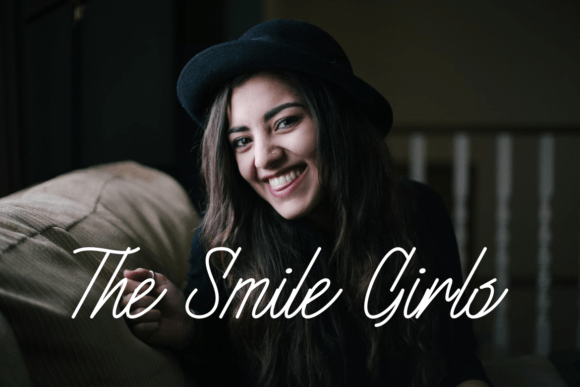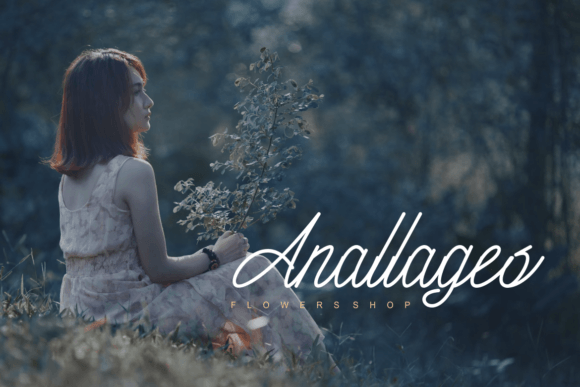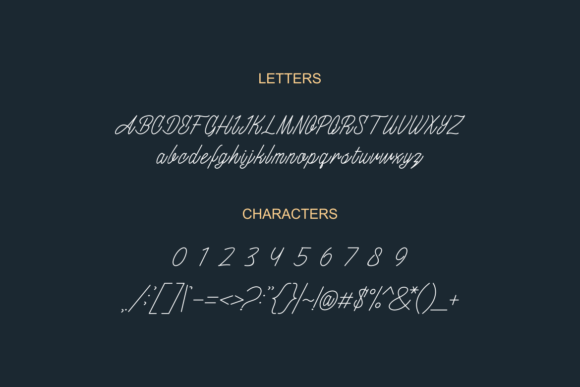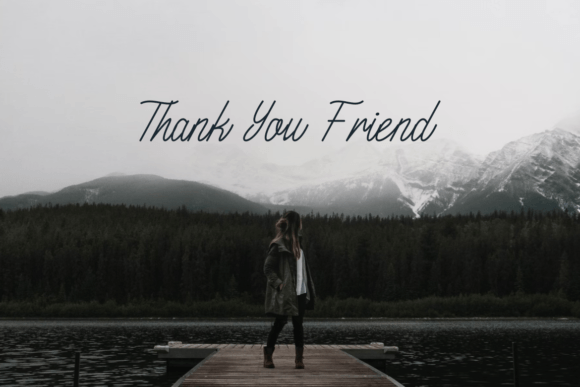
Discover the Timeless Elegance of Andalles Font
There’s nothing quite like the thrill of bringing a new project to life, watching your ideas take shape, and seeing your vision unfold. For many designers, this moment is a true rush of excitement, a chance to unleash their creativity and showcase their unique style. And what better way to elevate your designs than with a font that exudes timeless elegance and sophistication?
Enter Andalles Font, a masterfully designed handwritten font that seamlessly blends classic calligraphic influences with a fresh, contemporary vibe. With its beautiful, flowing lines and subtle flair, Andalles Font is the perfect choice for designers seeking to add a touch of sophistication to their projects. Whether you’re working on a wedding invitation, a luxury brochure, or a branding campaign, Andalles Font is sure to elevate your designs to new heights.
Review of Andalles Font
Overall, I’m quite impressed with the Andalles Font. It’s a beautiful, elegant script font that can add a touch of sophistication to any design project. ✨
- The Andalles Font has a unique, handwritten feel that’s perfect for creating a personal, emotive connection with the audience.
- The font’s subtle irregularities and imperfections give it a human touch that’s hard to find in more formal, digital fonts.
- The Andalles Font is highly customizable, with a wide range of options for adjusting font size, color, and spacing.
- It’s a great choice for designing invitations, quotes, and other text-based projects where a touch of elegance is needed.
LIMITATIONS:
While the Andalles Font is a great choice for many design projects, it’s not without its limitations. ⚠️
- The font may be a bit too ornate for some projects, which can make it difficult to read in certain contexts.
- The Andalles Font may not be the best choice for designing text that needs to be highly legible, such as body text or headlines.
- The font’s customizability can be a double-edged sword, as it may be overwhelming for designers who are new to working with script fonts.
Overall, I think the Andalles Font is a great addition to any designer’s toolkit. With a little care and attention, it can be a powerful tool for creating beautiful, elegant designs.
Andalès Font: A Practical Application Guide
Andalès font is ideal for use in titles, headings, and body text for creative projects, such as:
– Branding and marketing materials
– Brochures and flyers
For optimal results, pair the Andalès font with complementary fonts and colors to create a visually appealing design.
Alternatives to Andalles Font for Designers
Montserrat is a popular sans-serif font designed by Julieta Ulanovsky. It’s ideal for use in digital products, branding, and marketing materials. Montserrat is a great alternative to Andalles Font as it offers a similar modern feel but with a more geometric and clean appearance. It’s highly legible and suitable for body text, headlines, and titles.
Inter is a sans-serif font designed by Rasmus Andersson. It’s a highly versatile font that’s suitable for a wide range of applications, from digital products to print materials. Inter offers a similar modern feel to Andalles Font but with a more minimalist and sleek appearance. It’s highly legible and suitable for body text, headlines, and titles.
Open Sans is a modern sans-serif font designed by Steve Matteson. It’s a highly legible font that’s suitable for digital products, branding, and marketing materials. Open Sans is a great alternative to Andalles Font as it offers a similar modern feel but with a more friendly and approachable appearance. It’s suitable for body text, headlines, and titles.